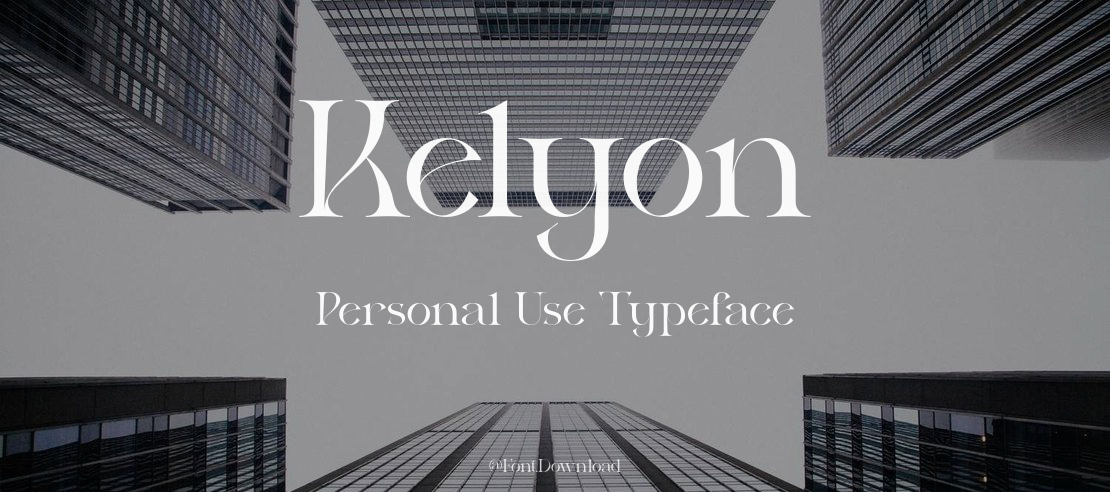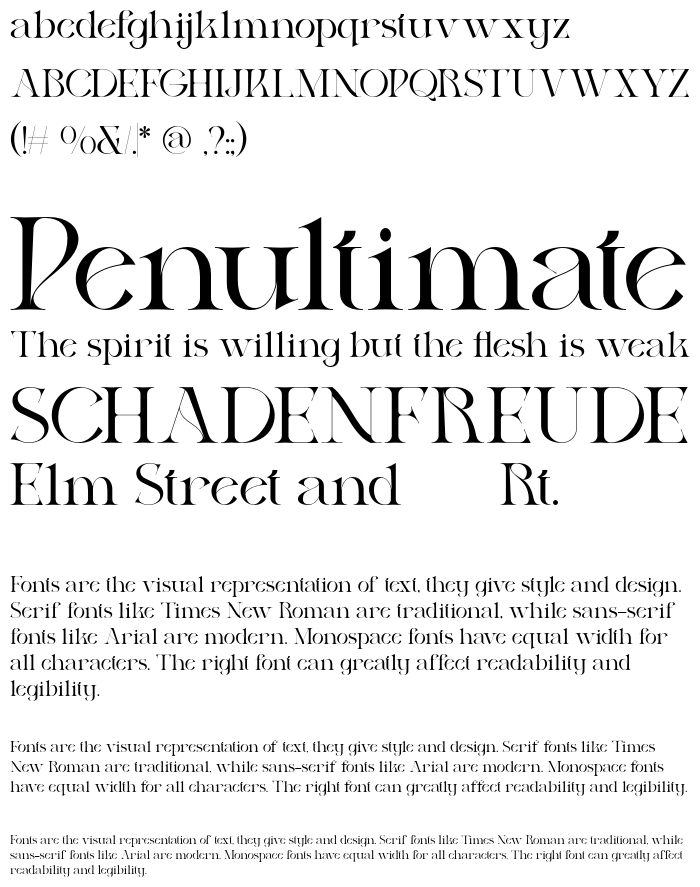
Kelyon is a stylish and contemporary serif font that draws inspiration from the late Middle Ages and early Renaissance period. The design features a delicate hairline and elongated serifs, evoking the charm of the 14th century. With over 60 stylistic ligatures, Kelyon is well-suited for headlines and short to medium passages. Supporting 93 languages and offering 439 glyphs, including various alternatives, this font is versatile. It is free for personal use. For commercial use, please download it at the following link: https://fontbundles.net/valentinovergan/2358792-kelyon-modern-serif. To learn more about the designer's other works, visit: https://www.behance.net/valentinovergan and https://www.instagram.com/valentinovergan. If you have any inquiries, feel free to reach out at .